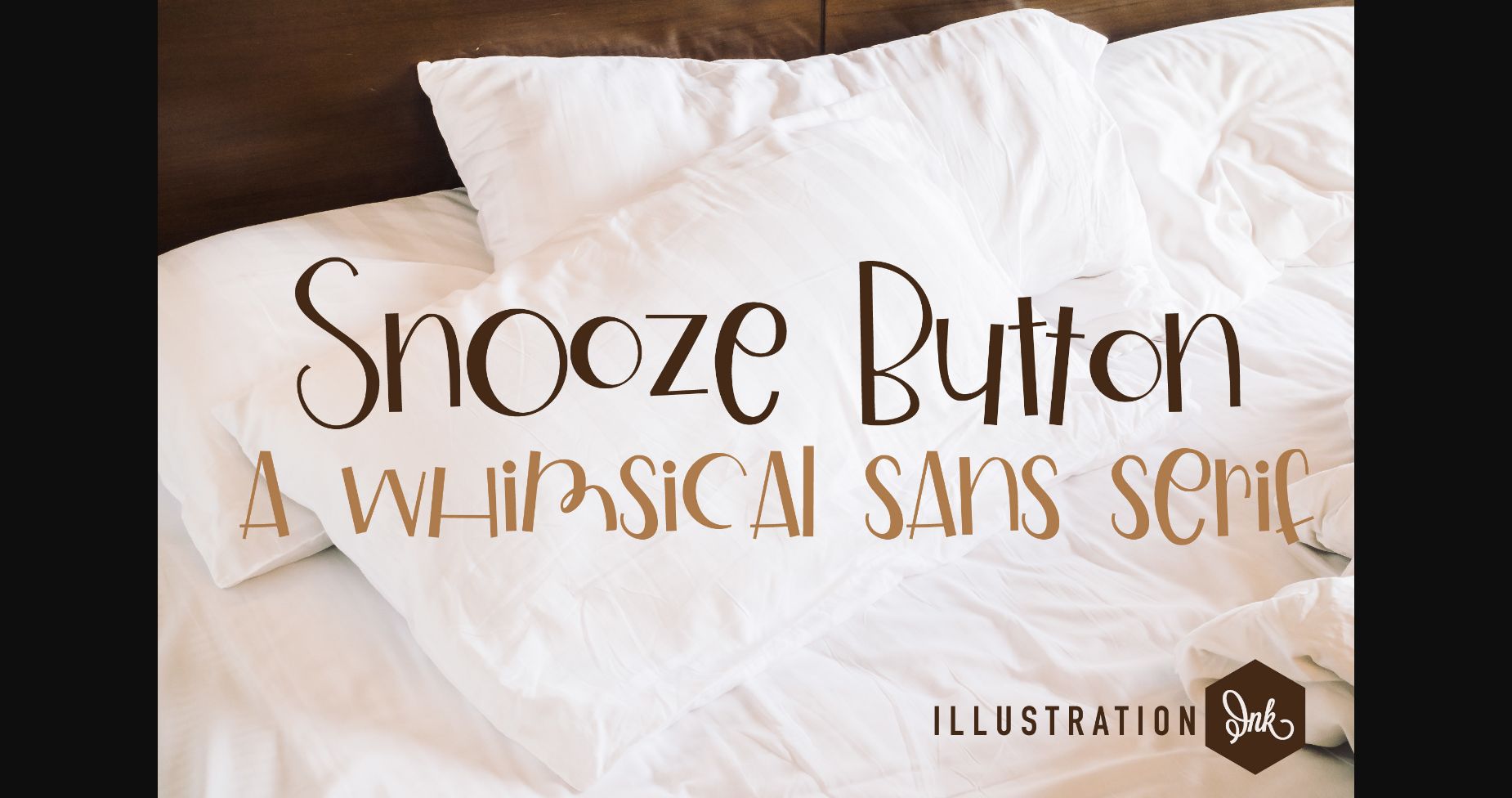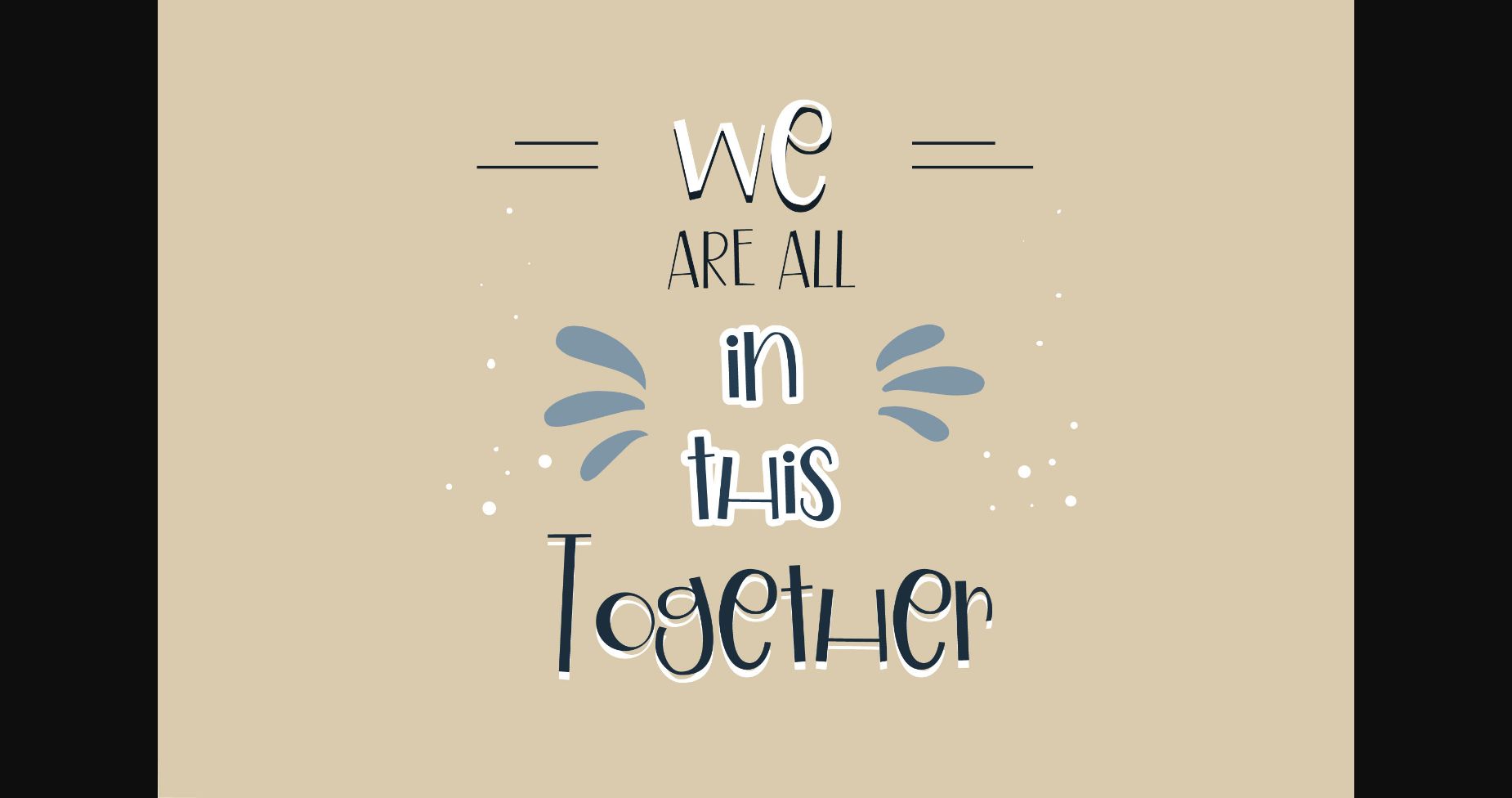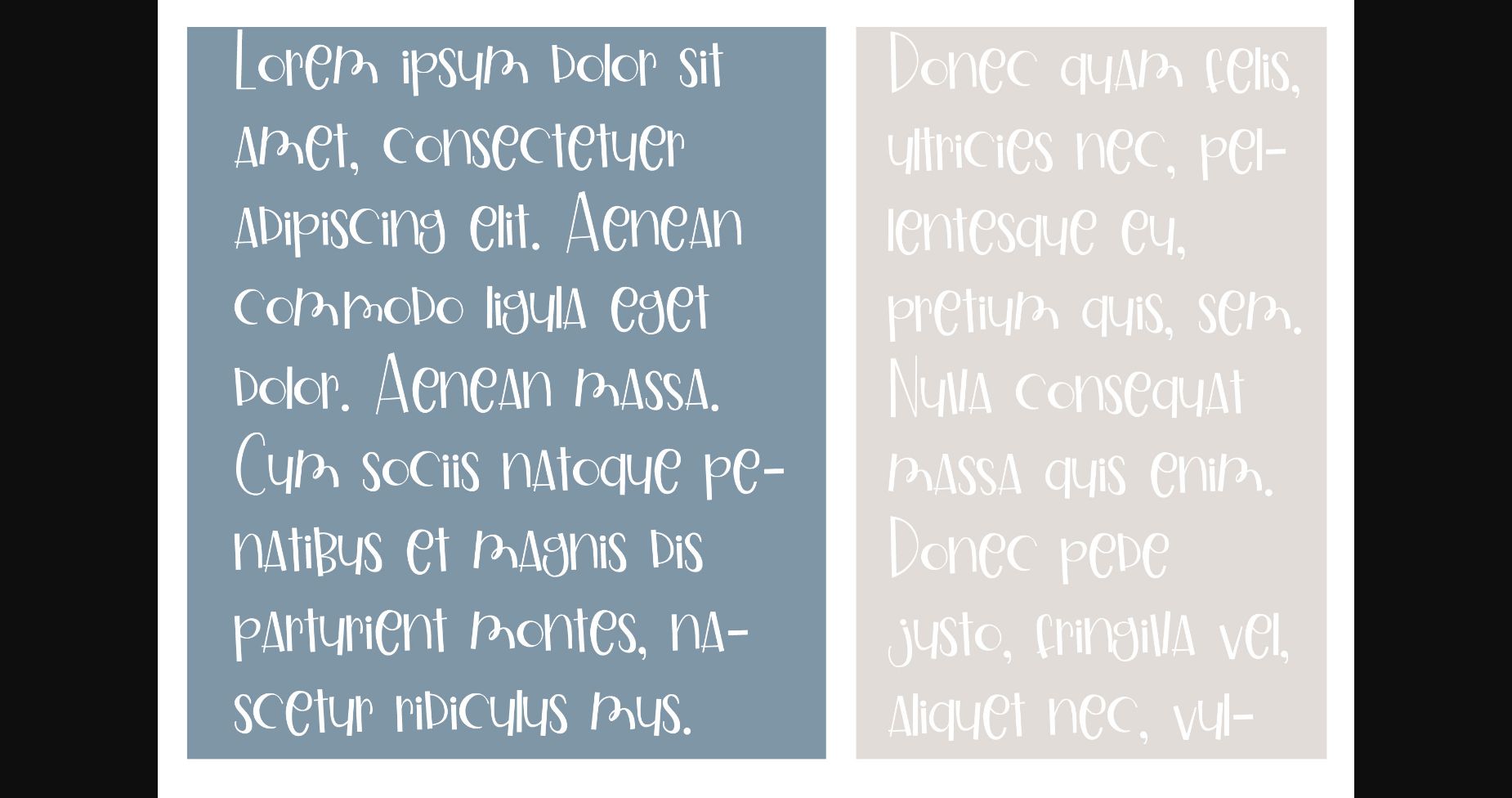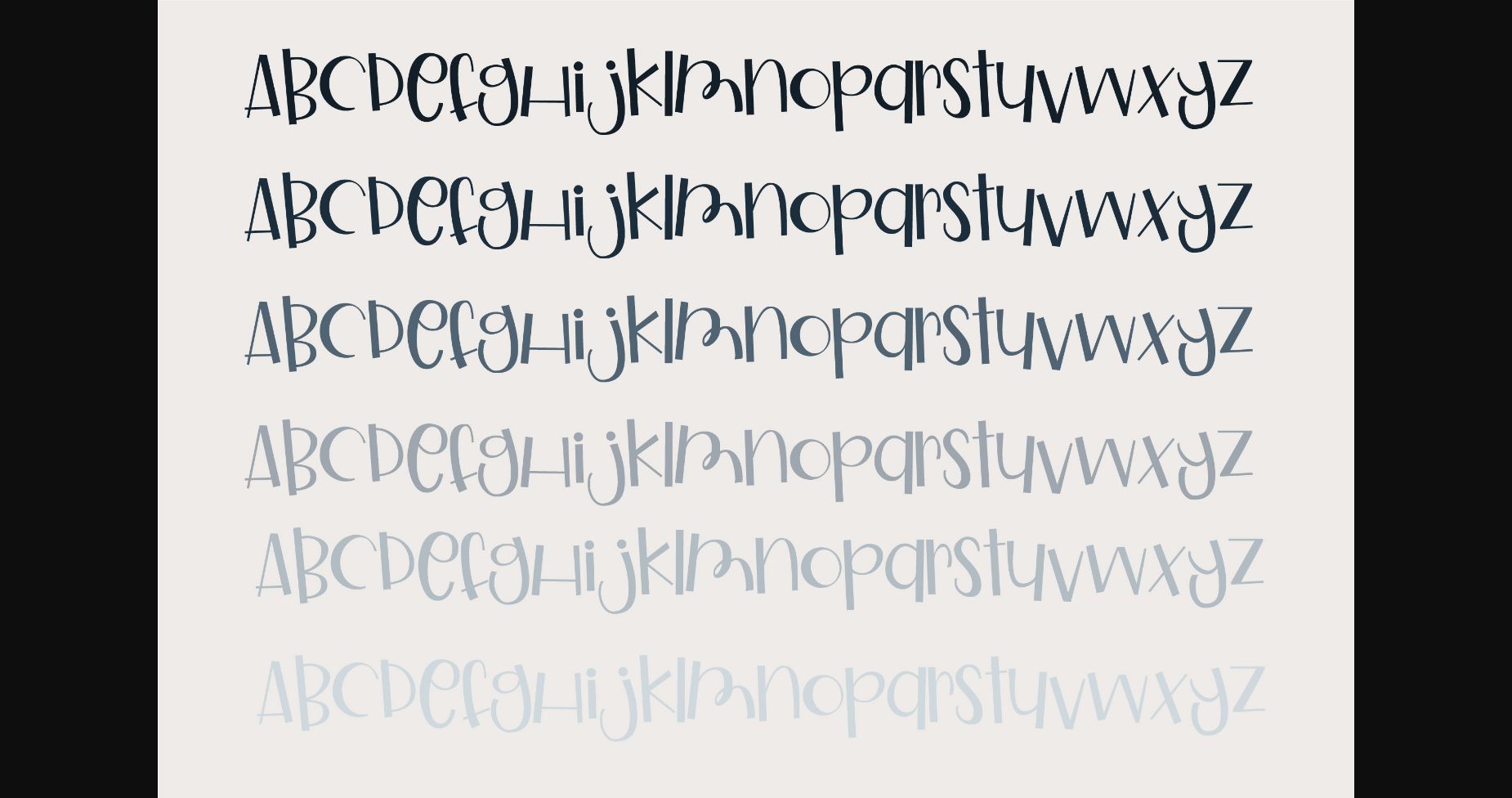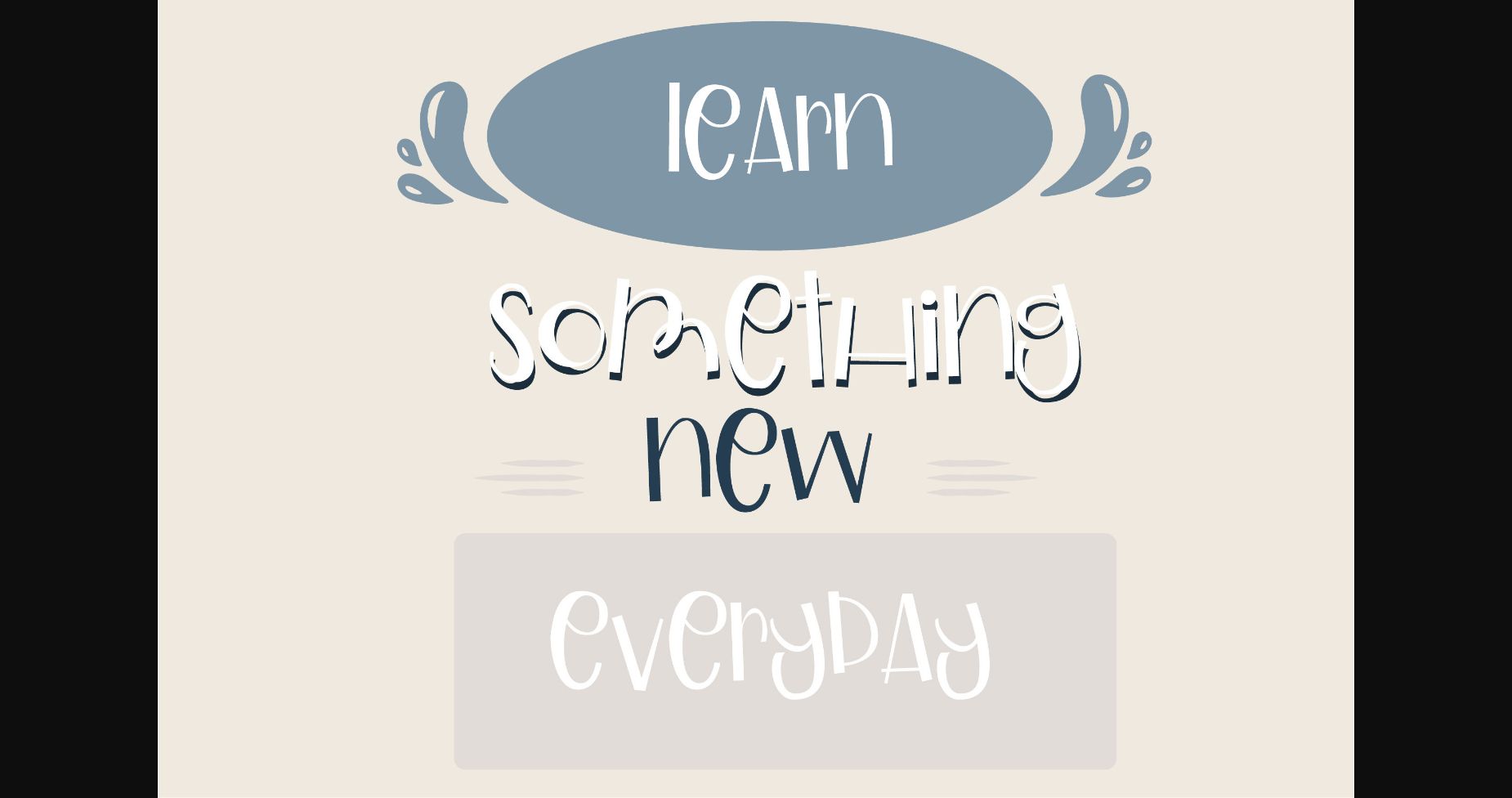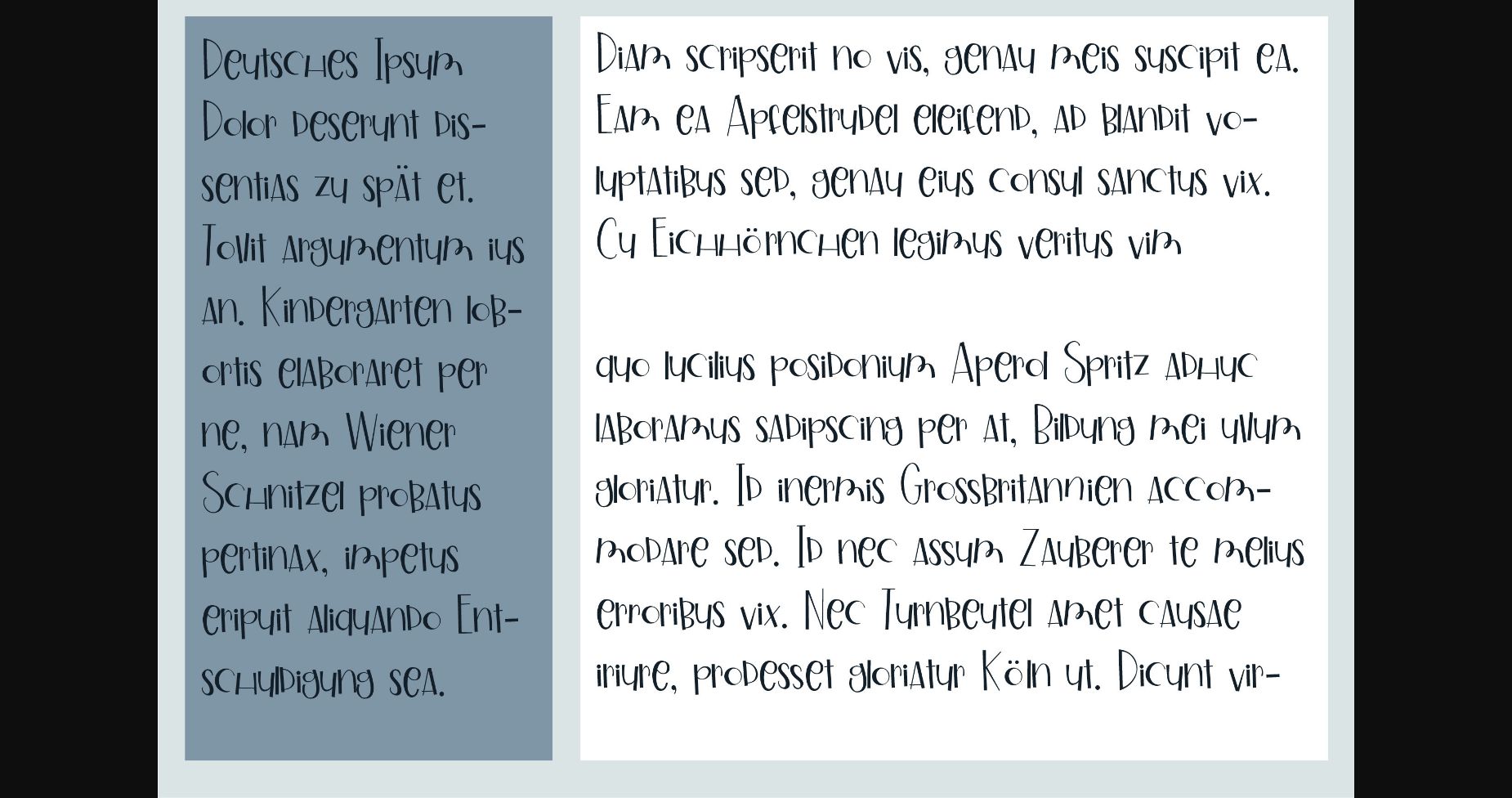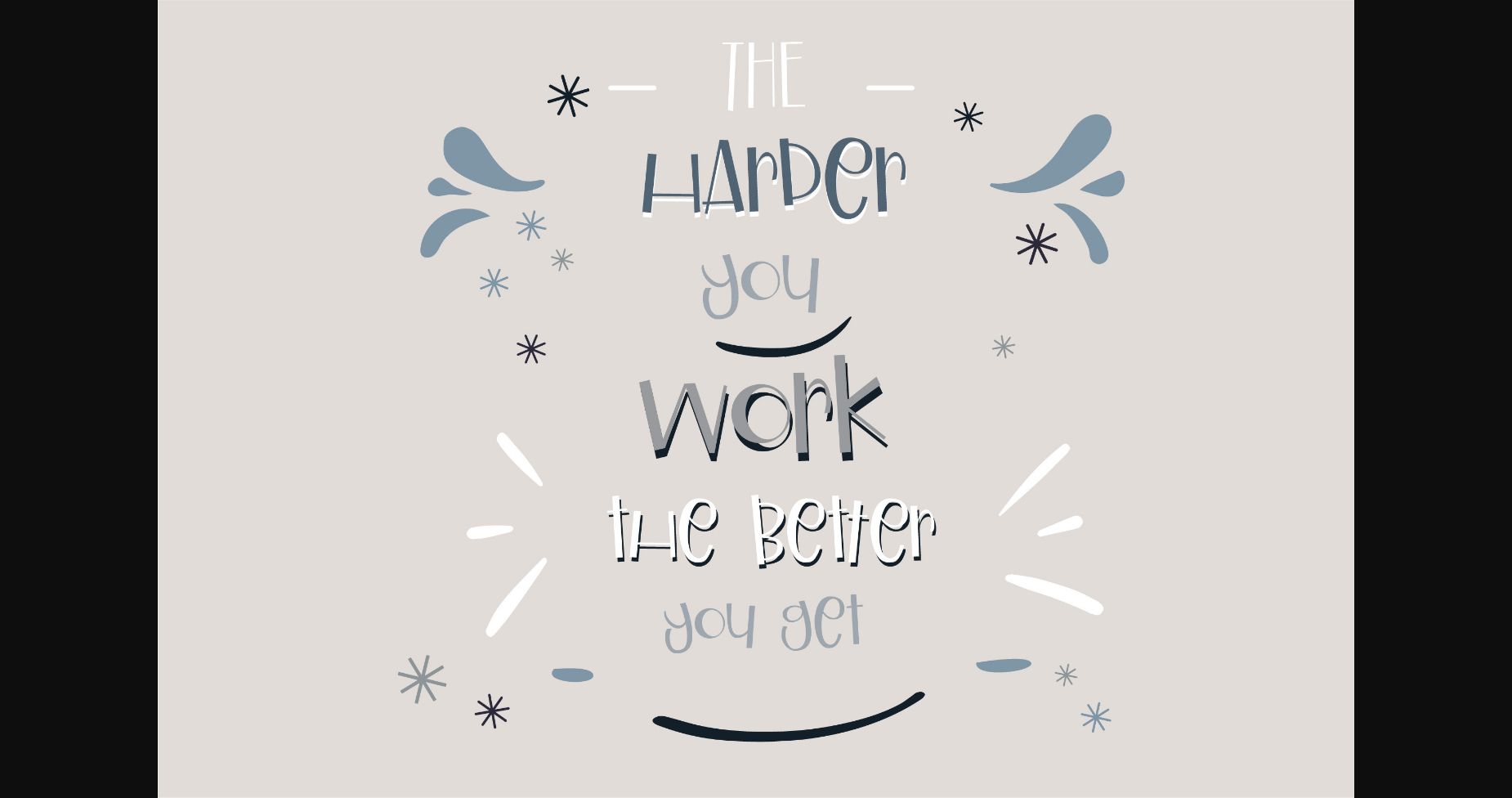
HomeSans Serif FontsSnooze Button Font Sans Serif Fonts Snooze Button Font FacebookXPinterestWhatsApp 1 of 9 ... Snooze Button Font Poster 2... Snooze Button Font Poster 3... Snooze Button Font Poster 4... Snooze Button Font Poster 5... Snooze Button Font Poster 6... Snooze Button Font Poster 7... Snooze Button Font Poster 8... Snooze Button Font Poster 9... About Snooze Button Font Snooze Button is a chic, slim and sweet sans serif font. It is perfect for product packaging, branding project, magazine covers, social media, wedding, or just used to express words above the background. DOWNLOAD NOW People also explored Jonas Beckman Font Bobalicious Font Fairland Duo Font Cavéllo Font Stephaney Umbrella Font Roswita Font Soulmate Font Broochy 316 0 TagsSnooze Button Font Previous articleSnickometer FontNext articleParisienne Font LEAVE A REPLY Cancel reply Comment: Please enter your comment! Name:* Please enter your name here Email:* You have entered an incorrect email address! Please enter your email address here Website: Save my name, email, and website in this browser for the next time I comment. Personal Use Free Tide Personal Use Free Read more about this font Eloquence Personal Use Free Read more about this font Hiters Personal Use Free Read more about this font Breather Personal Use Free Read more about this font BLOG How to Cut Any Font on Cricut: Convert a Font to SVG (Free) Turn any font into a clean SVG so it cuts crisp on Cricut - a quick 3-step workflow using a free font-to-SVG tool. Top 10 Handwritten Fonts That Elevate Your Designs Best Fonts for YouTube Videos: Make Your Thumbnails Stand Out How to Install and Use Fonts on Windows, macOS, and Web Projects